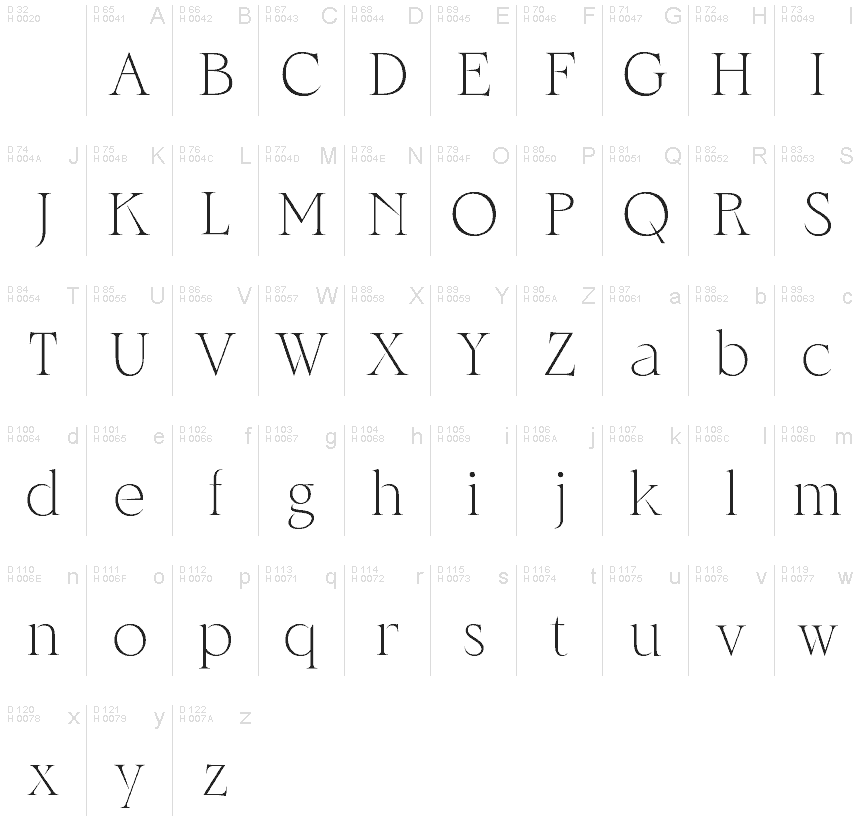
CS Dimension Regular Demo
CS Dimension font by Craft Supply Co. is a free serif font that embodies a timeless elegance, blending sophisticated and classic elements into a refined design. Its balanced aesthetics and formal appearance make it perfect for communicating a sense of tradition with modern sensibilities.
The elegant qualities of CS Dimension make it ideal for posters, logos, branding purposes, business cards, magazines headings, stationery design, packaging, invitation cards as well as other projects which require beauty in combination with style!